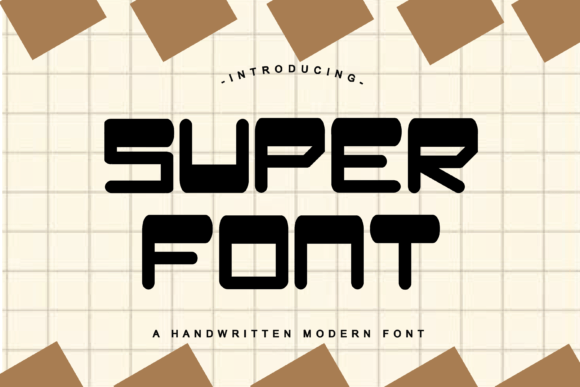
Journey into a world of captivating creativity with Super Font, a display font that ignites your imagination like never before. Step into a realm where letters dance with joy, embracing the festive spirit of Christmas stockings. A creation by hl_studio, Super Font is an artistic masterpiece that breathes life into your designs with playful elegance.
Indulge in the merriments of the season and adorn your projects with Super Font, the perfect font for capturing the essence of Christmas. Its enchanting curves and joyous strokes will add a touch of magic to your holiday designs, making them shine with festive cheer. Let your imagination run wild as you explore the endless possibilities of Super Font, a font that's sure to ignite your creative spark.
With Super Font, the ordinary becomes extraordinary. Its whimsical personality adds a touch of enchantment to your designs, making them stand out from the mundane. Whether you're creating Christmas cards, holiday invitations, or festive posters, Super Font will transform your words into works of art, leaving a lasting impression on your audience.
Unleash your creativity and let Super Font guide you on a festive adventure. Its playful nature will awaken your inner child, inspiring you to create designs that are both captivating and heartwarming. Experience the joy of designing with Super Font, a font that will fill your projects with the spirit of Christmas, bringing smiles to the faces of all who encounter it.
Embrace the magic of Super Font and let your designs radiate with holiday cheer. Dive into a world of festive creativity and witness the transformation of your designs into enchanting masterpieces. Let Super Font be your guide on this artistic journey, igniting your imagination and spreading joy wherever your designs may go.